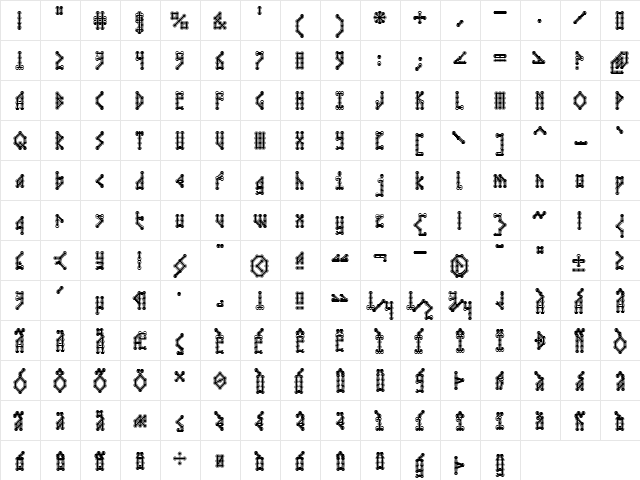
Microbe Collegiate AOE Regular Font Preview
Microbe Collegiate AOE Regular
Design Context for Microbe Collegiate AOE Typeface
Microbe Collegiate AOE is a composed and adaptable typeface that performs quietly and consistently across a wide range of design contexts.